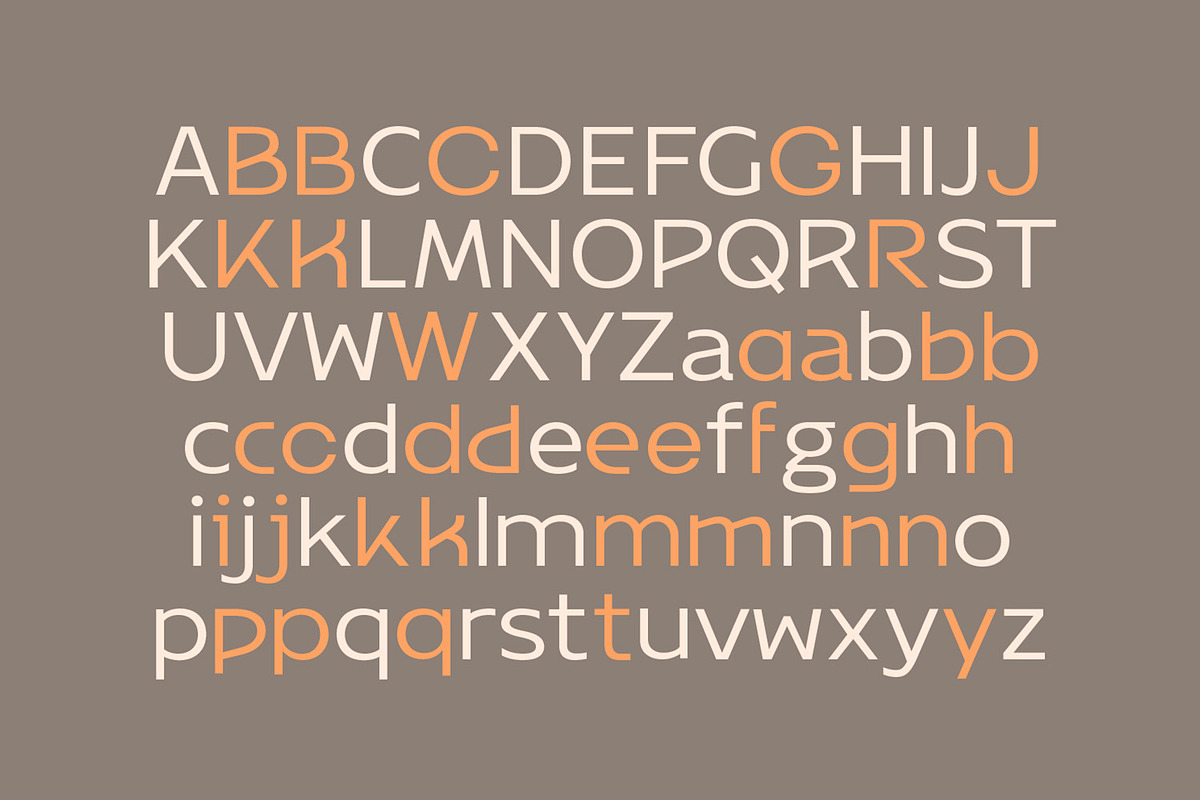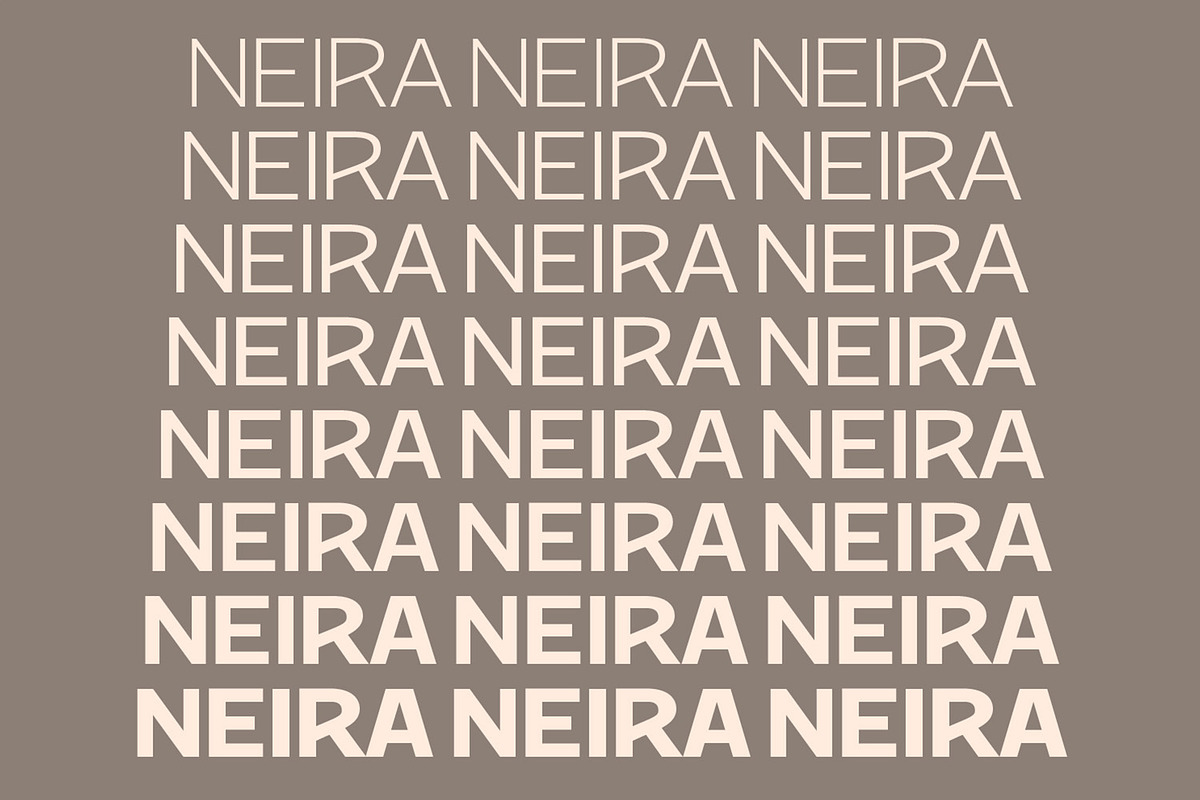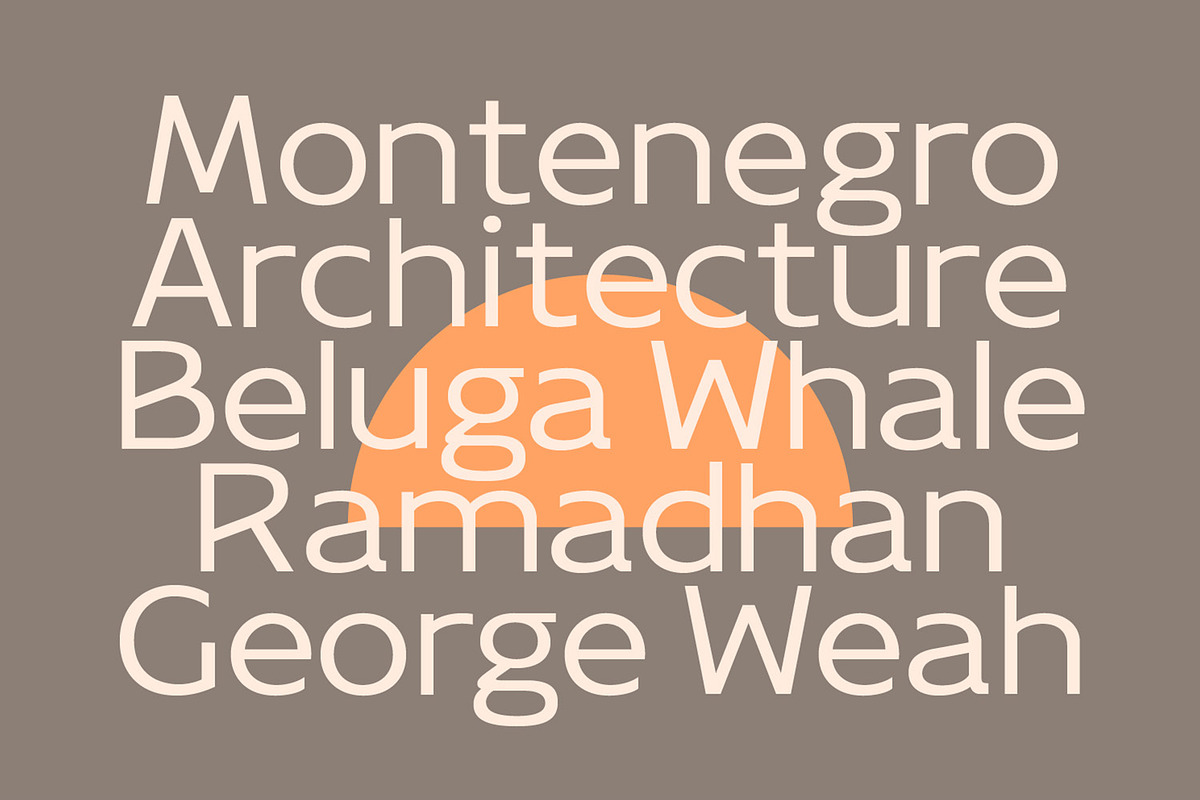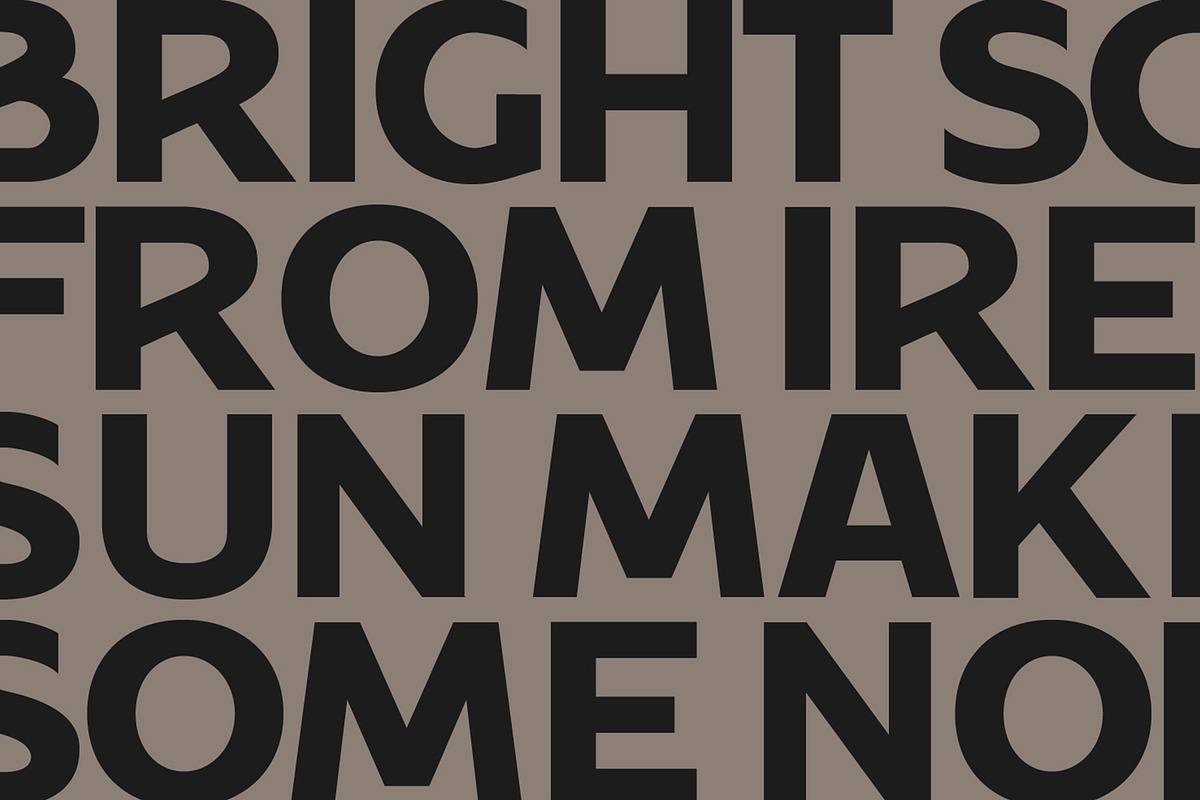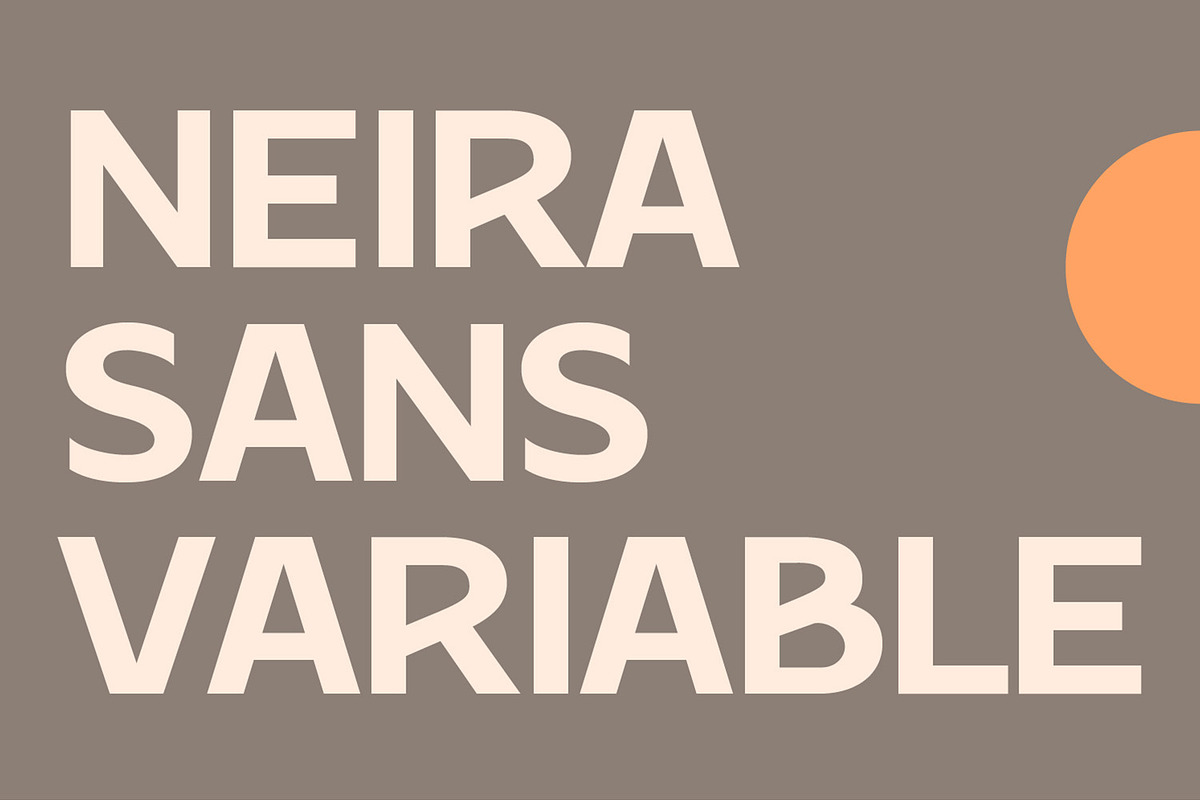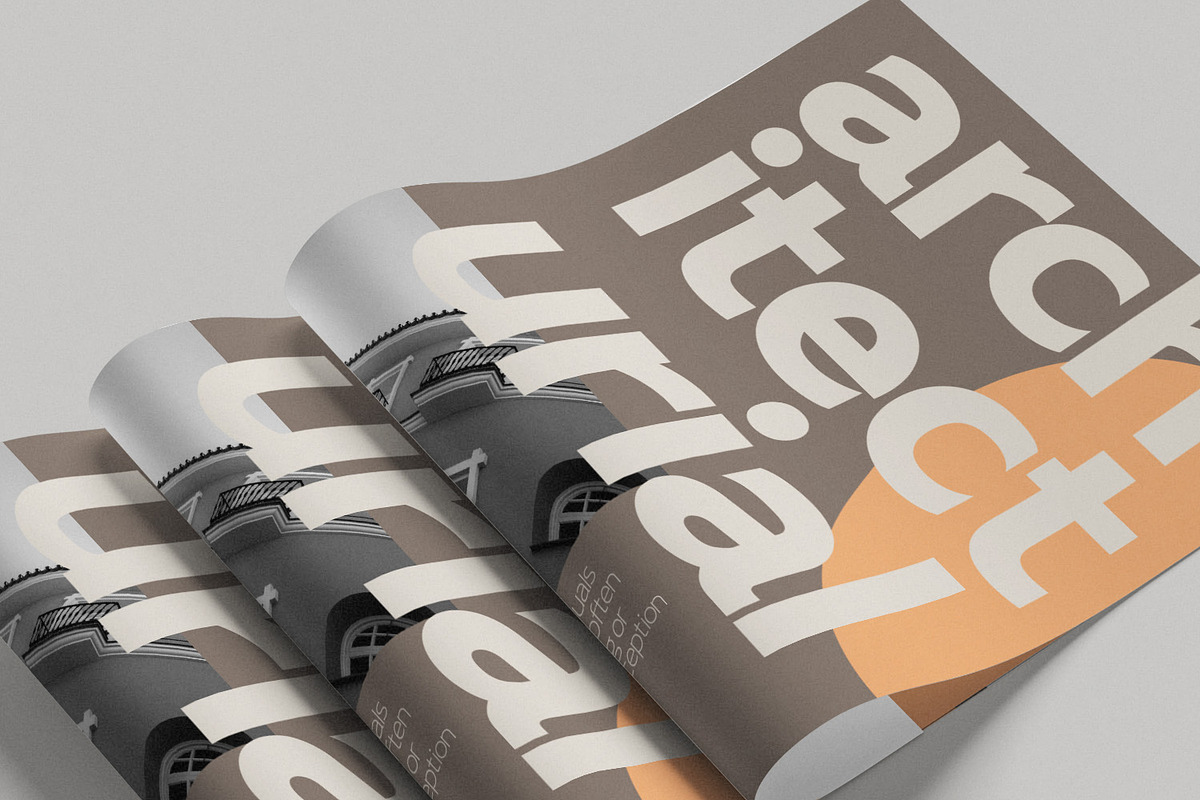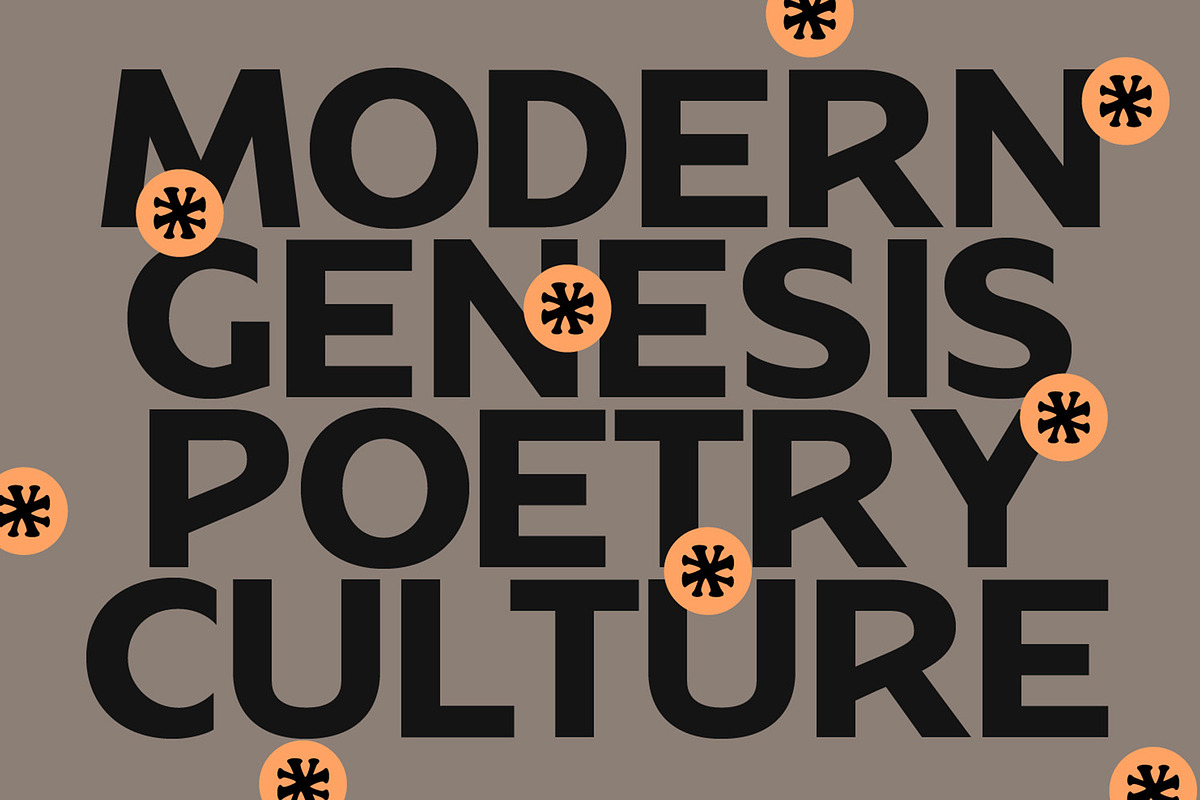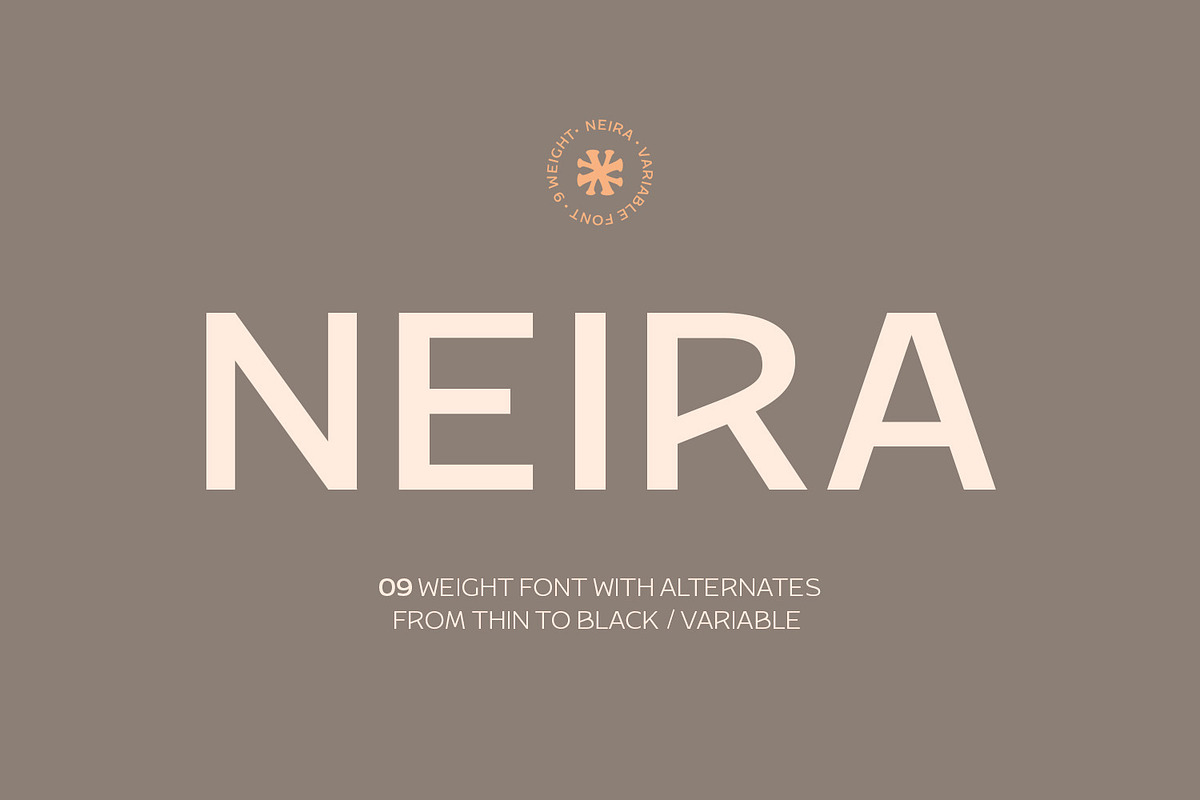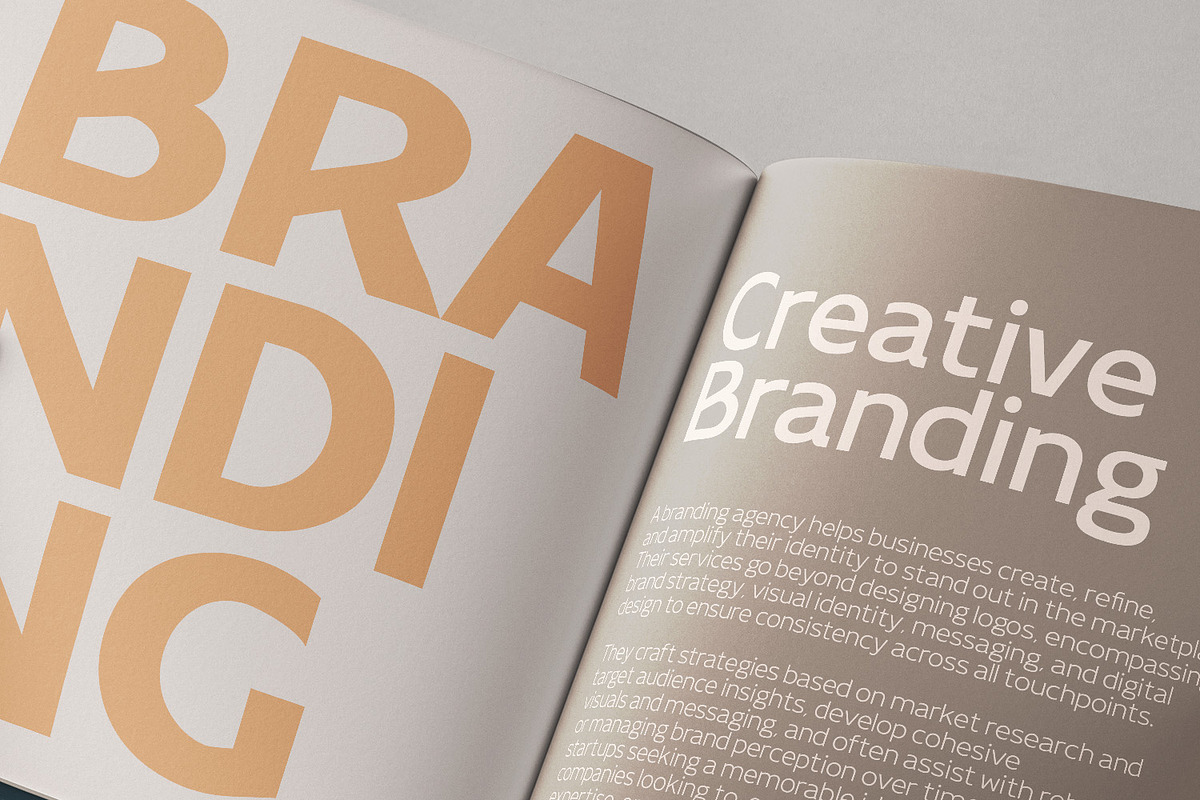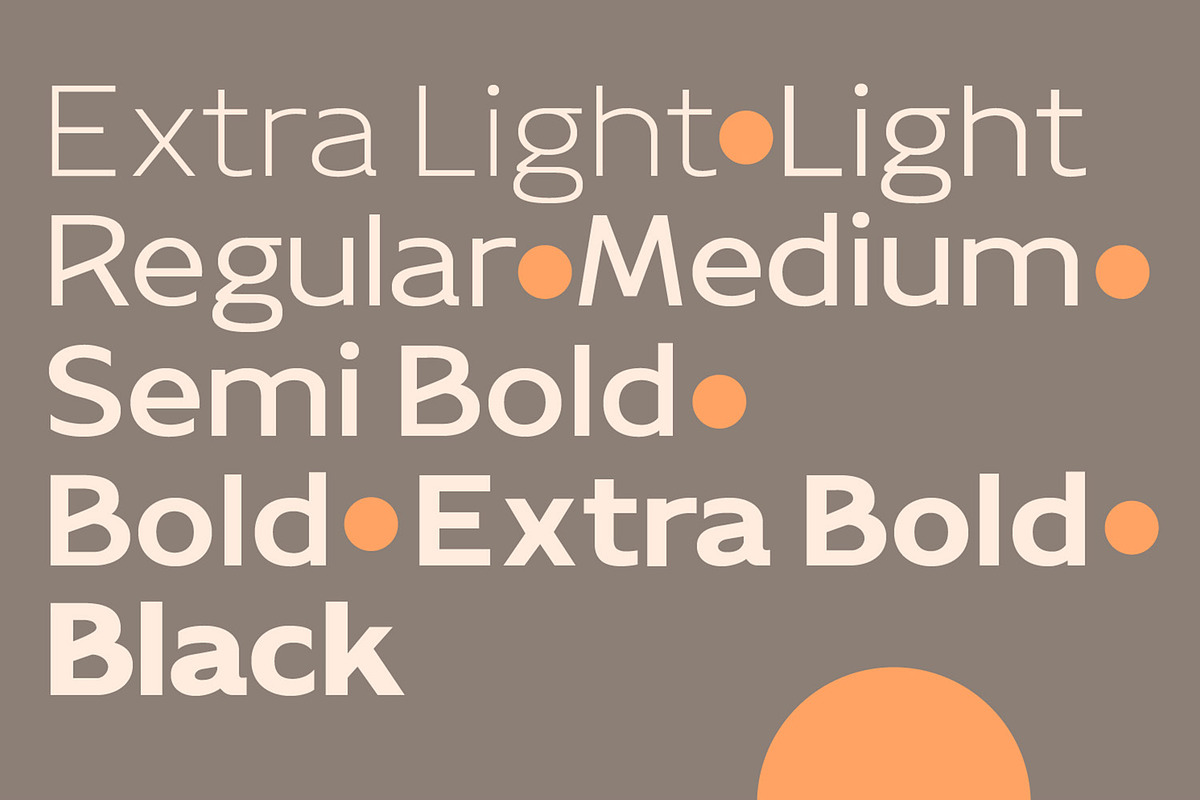
Neira - Sans Serif Family
Introducing Neira, a sophisticated sans-serif font family designed for versatility and elegance. Featuring 9 weights ranging from Thin to Black, with alternates and variable options, Neira is the perfect choice for modern branding, editorial layouts, UI/UX design, and more. Its clean lines and balanced proportions offer a timeless aesthetic, ensuring seamless application across both print and digital platforms. Whether you’re designing bold headlines or refined body text, Neira adapts effortlessly to any project. Elevate your typography game with Neira.